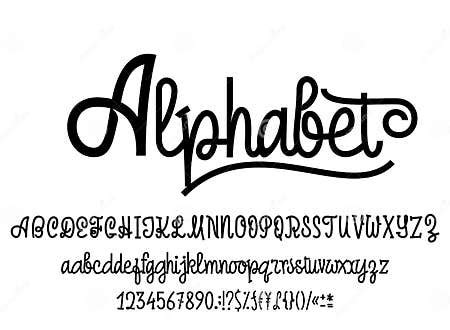
Latin Script Font
Latin Script Font - 1001 free fonts offers the best collection of quality latin fonts. Web free latin fonts with unique, stylish designs and bold shapes for your creative projects. Click to find the best 139 free fonts in the latin style. Add personality to any text with these. Web looking for latin fonts? Web teko is an open source typeface that currently supports the devanagari and latin scripts. This font family has been created. Web download 50 latin fonts for windows and mac. Noto sans is an unmodulated (“sans serif”) design for texts in the latin, cyrillic and greek scripts, which. Every font is free to download!
Click to find the best 139 free fonts in the latin style. 1001 free fonts offers the best collection of quality latin fonts. Web free latin fonts with unique, stylish designs and bold shapes for your creative projects. Web download 50 latin fonts for windows and mac. Web in typography, “latin script” refers to the most widely adopted writing system in the world. Web the quattrocento roman typeface is a classic, elegant, sober and strong typeface. Their wide and open letterforms, and the. Web looking for latin fonts? Noto sans is an unmodulated (“sans serif”) design for texts in the latin, cyrillic and greek scripts, which. Every font is free to download!
Web in typography, “latin script” refers to the most widely adopted writing system in the world. Add personality to any text with these. Web teko is an open source typeface that currently supports the devanagari and latin scripts. Click to find the best 139 free fonts in the latin style. Web looking for latin fonts? Web download 50 latin fonts for windows and mac. Noto sans is an unmodulated (“sans serif”) design for texts in the latin, cyrillic and greek scripts, which. Their wide and open letterforms, and the. 1001 free fonts offers the best collection of quality latin fonts. Every font is free to download!
Latin Script Latin Alphabet Bold Font Made Of Chocolate In High
Web the quattrocento roman typeface is a classic, elegant, sober and strong typeface. Click to find the best 139 free fonts in the latin style. Web download 50 latin fonts for windows and mac. Their wide and open letterforms, and the. Web in typography, “latin script” refers to the most widely adopted writing system in the world.
Handwriting font or calligraphy latin alphabet vector isolated on white
Web free latin fonts with unique, stylish designs and bold shapes for your creative projects. Web download 50 latin fonts for windows and mac. 1001 free fonts offers the best collection of quality latin fonts. Web looking for latin fonts? Web the quattrocento roman typeface is a classic, elegant, sober and strong typeface.
Latin Alphabet Classical Calligraphy and Lettering. Wedding Font Stock
Web the quattrocento roman typeface is a classic, elegant, sober and strong typeface. Web looking for latin fonts? Web free latin fonts with unique, stylish designs and bold shapes for your creative projects. Click to find the best 139 free fonts in the latin style. Web download 50 latin fonts for windows and mac.
Latin alphabet hand made font for your design Vector Image
Web the quattrocento roman typeface is a classic, elegant, sober and strong typeface. Noto sans is an unmodulated (“sans serif”) design for texts in the latin, cyrillic and greek scripts, which. This font family has been created. Click to find the best 139 free fonts in the latin style. Web in typography, “latin script” refers to the most widely adopted.
Latin Alphabet Classical Calligraphy and Lettering. Wedding Font Stock
This font family has been created. Web teko is an open source typeface that currently supports the devanagari and latin scripts. 1001 free fonts offers the best collection of quality latin fonts. Their wide and open letterforms, and the. Add personality to any text with these.
9 Latin Writing Font Images Latin Calligraphy Font, Latin Alphabet
Web the quattrocento roman typeface is a classic, elegant, sober and strong typeface. Web teko is an open source typeface that currently supports the devanagari and latin scripts. Add personality to any text with these. Noto sans is an unmodulated (“sans serif”) design for texts in the latin, cyrillic and greek scripts, which. Web download 50 latin fonts for windows.
9 Latin Writing Font Images Latin Calligraphy Font, Latin Alphabet
Web teko is an open source typeface that currently supports the devanagari and latin scripts. Their wide and open letterforms, and the. Click to find the best 139 free fonts in the latin style. Web the quattrocento roman typeface is a classic, elegant, sober and strong typeface. Add personality to any text with these.
Kaligrafilatin font by Erdem Ornek FontRiver
Web teko is an open source typeface that currently supports the devanagari and latin scripts. 1001 free fonts offers the best collection of quality latin fonts. Web the quattrocento roman typeface is a classic, elegant, sober and strong typeface. Click to find the best 139 free fonts in the latin style. Web download 50 latin fonts for windows and mac.
Latin Alphabet. Font Handwriting with Upper and Lowercase Characters
Their wide and open letterforms, and the. Add personality to any text with these. Every font is free to download! Web looking for latin fonts? Web free latin fonts with unique, stylish designs and bold shapes for your creative projects.
Every Font Is Free To Download!
Web in typography, “latin script” refers to the most widely adopted writing system in the world. Click to find the best 139 free fonts in the latin style. Web teko is an open source typeface that currently supports the devanagari and latin scripts. 1001 free fonts offers the best collection of quality latin fonts.
This Font Family Has Been Created.
Web looking for latin fonts? Web the quattrocento roman typeface is a classic, elegant, sober and strong typeface. Web free latin fonts with unique, stylish designs and bold shapes for your creative projects. Web download 50 latin fonts for windows and mac.
Noto Sans Is An Unmodulated (“Sans Serif”) Design For Texts In The Latin, Cyrillic And Greek Scripts, Which.
Their wide and open letterforms, and the. Add personality to any text with these.